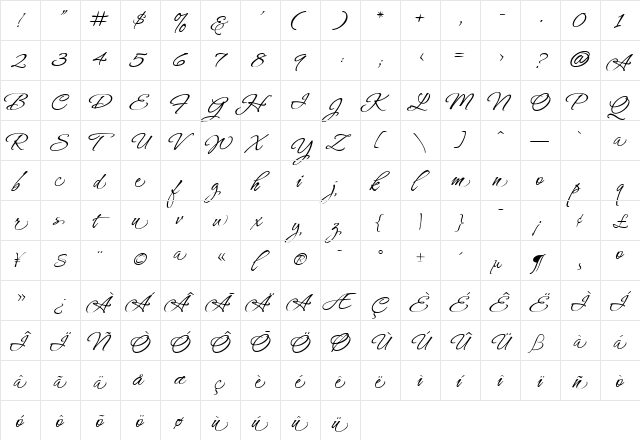
Hurricane Swash Swash
| Style | Swash |
Design Context for Hurricane Swash Typeface
Hurricane Swash brings a calligraphic fluidity to the page — its connecting strokes and expressive curves give it an unmistakably human quality.
Font Pairing: Combine Hurricane Swash with a simple geometric sans for maximum contrast — the tension between flowing curves and clean structure is a classic typographic pairing.
Pro Tip: Pair Hurricane Swash with a clean sans-serif for supporting text. The contrast between fluid script and geometric structure creates an elegant typographic hierarchy.